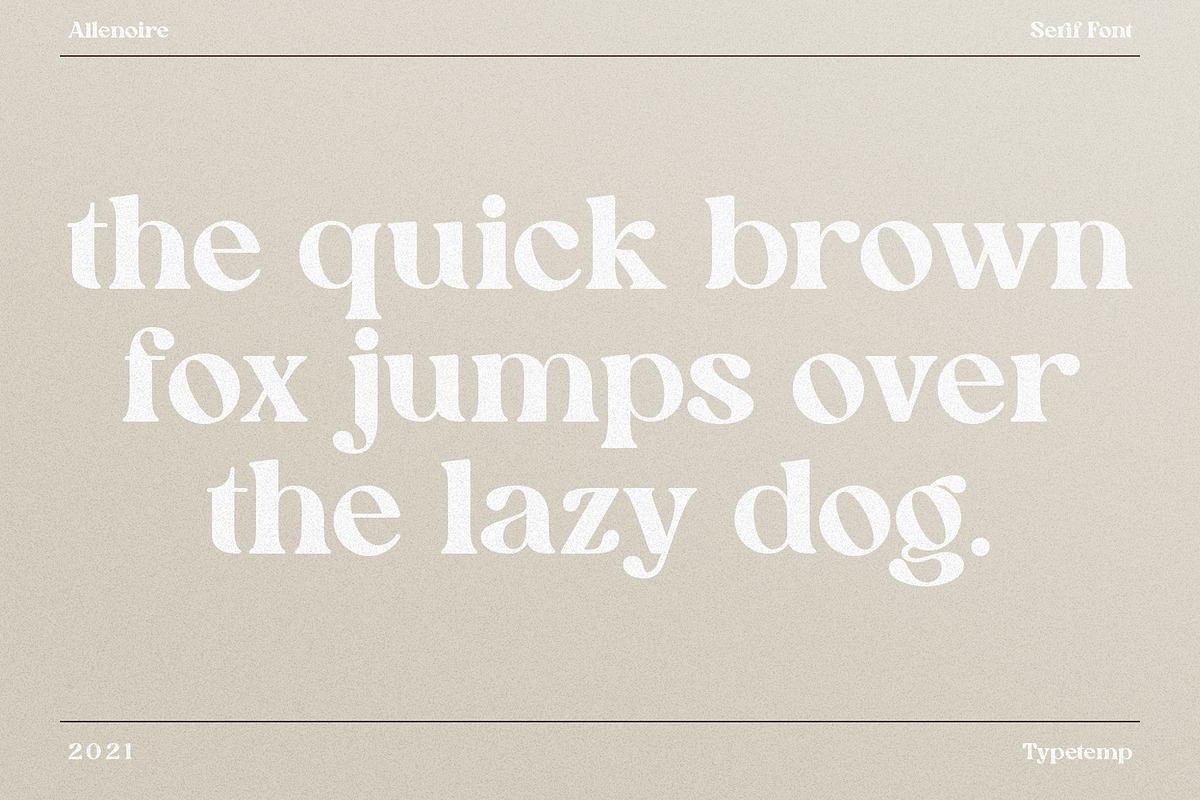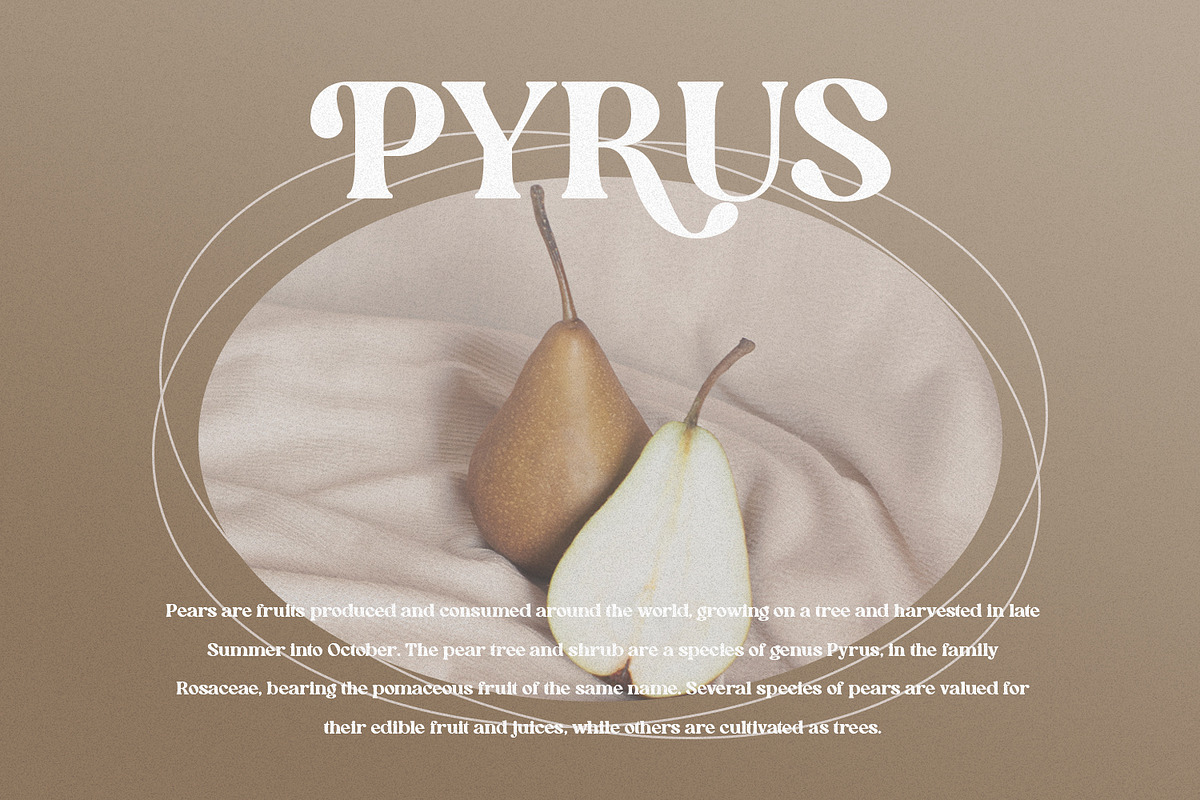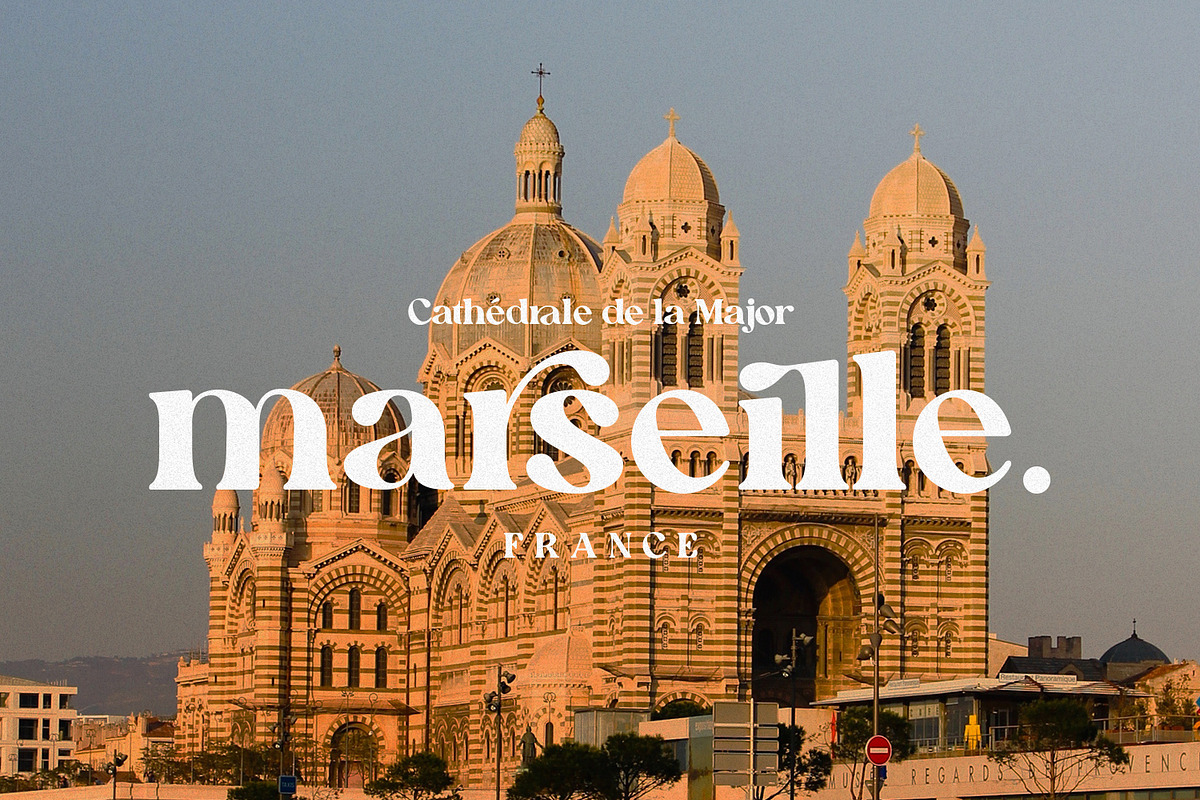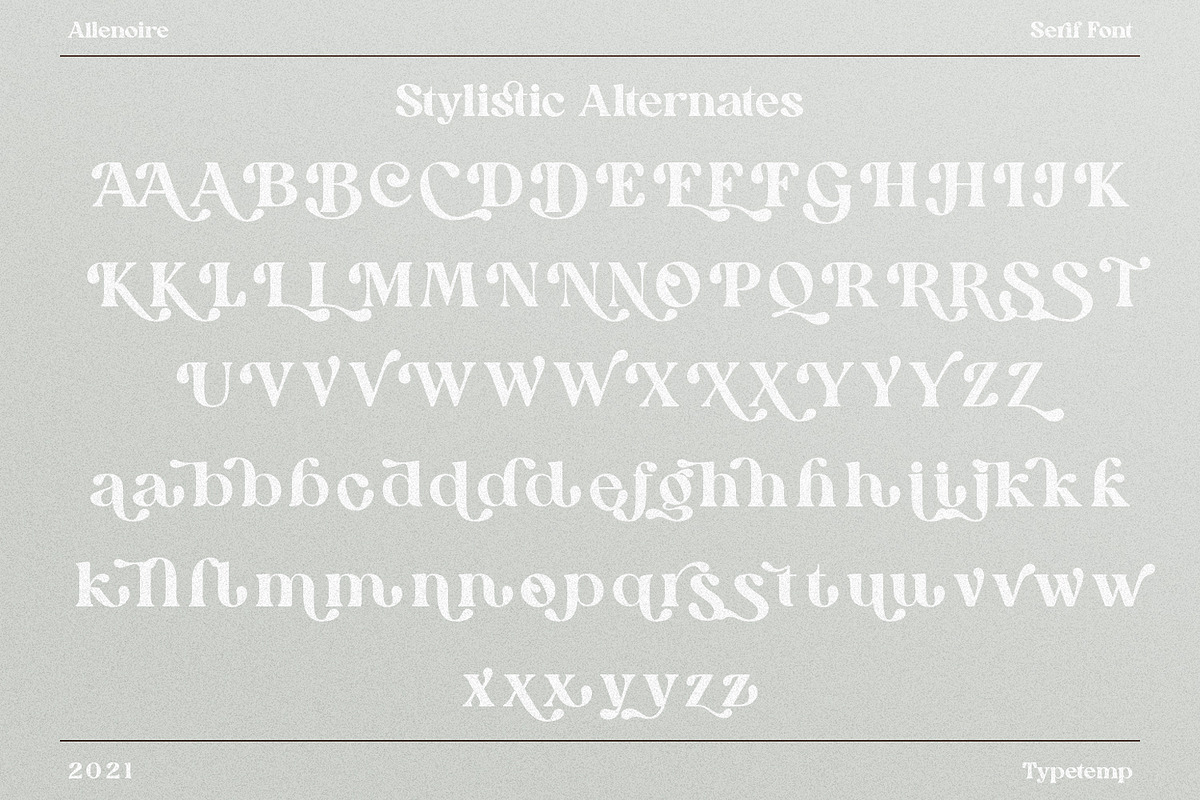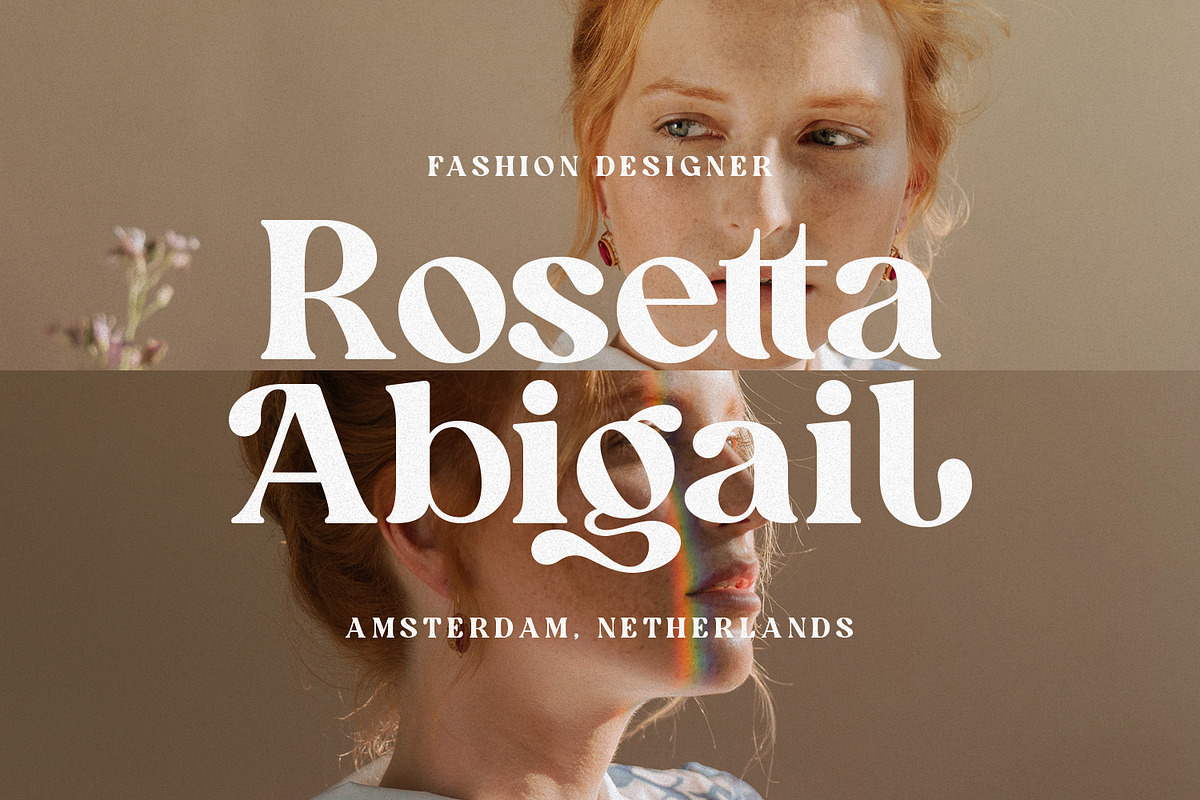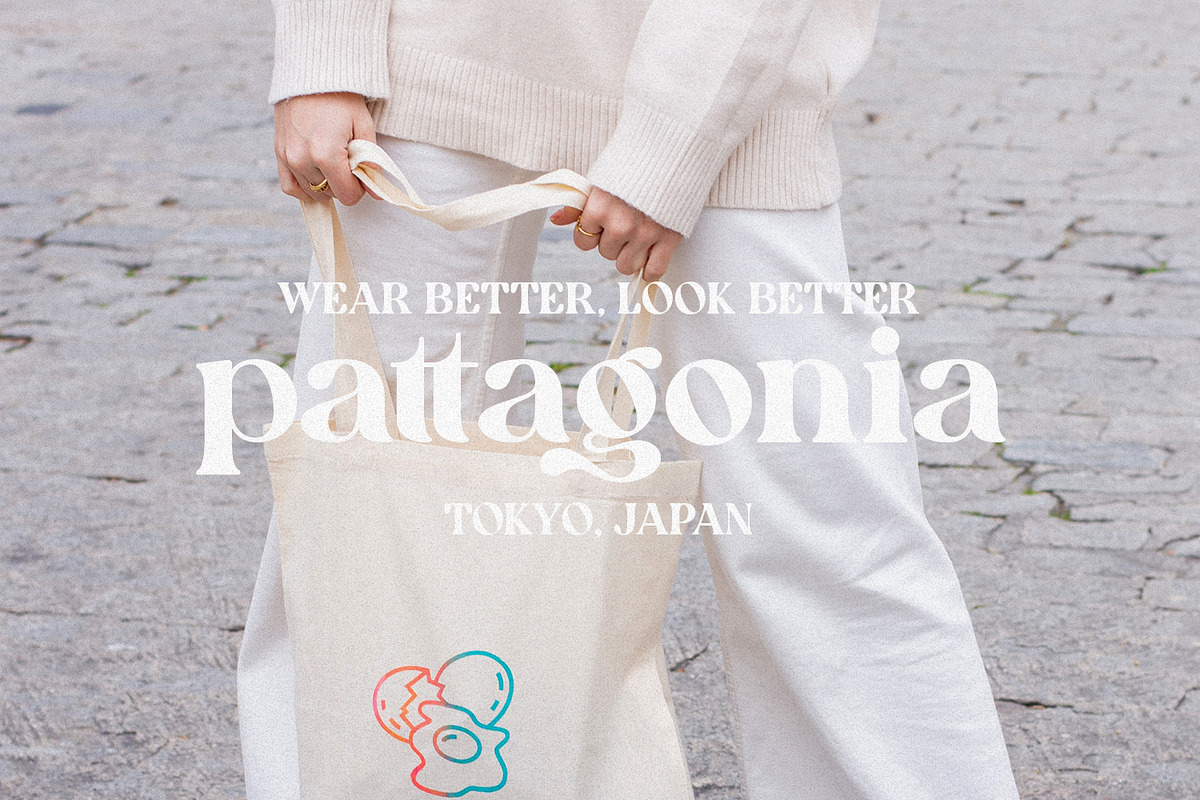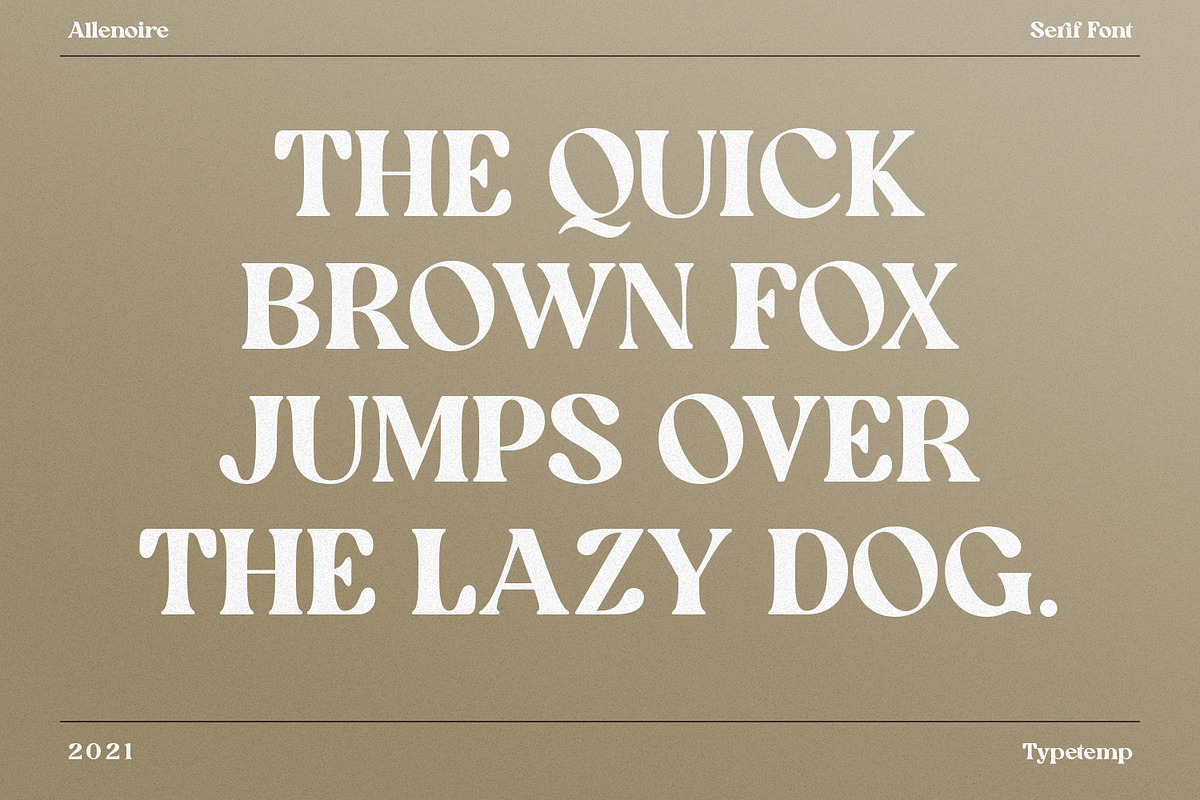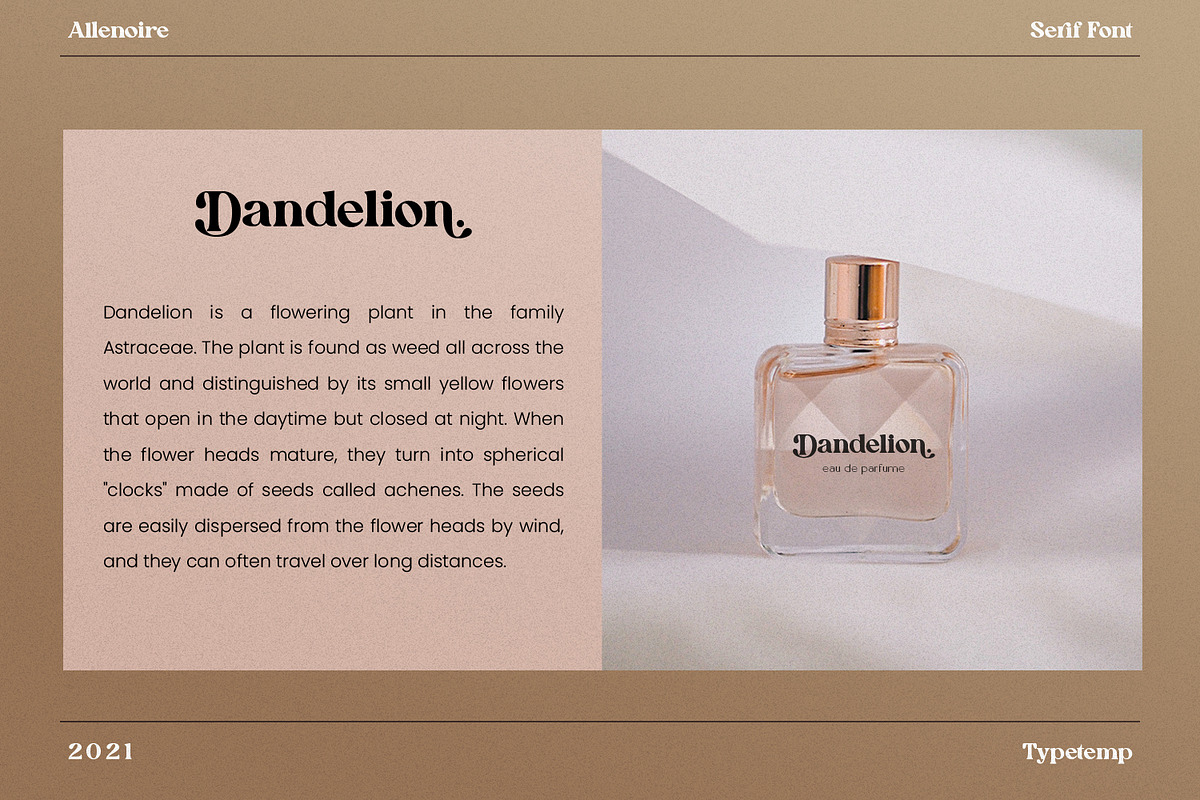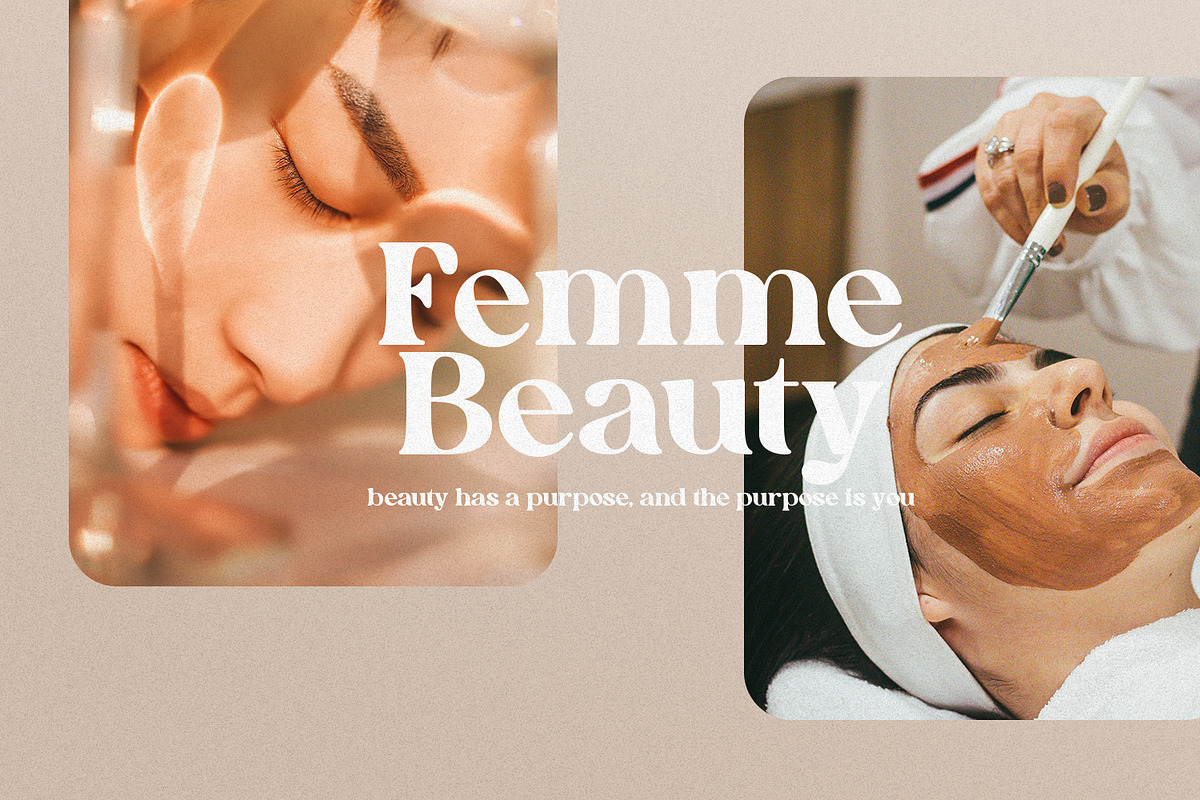
Allenoire - Modern Bold Serif Font
Allenoire - Modern Bold Serif Font is a stylish font It has both modern and retro look. Comes with alternatives and ligatures, helps to create stunning logos, quotes, posts, blog posts. branding projects, magazine imagery, wedding invitations, and much more.
Unique Letterforms